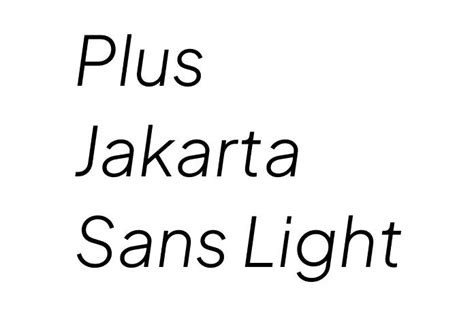
Hey guys! Ever stumbled upon a font that just screams professionalism and modern vibes? Chances are, you might have seen something from the Open-Source Mạnh Tường Foundation (OSMF) , and today, we’re diving deep into their contribution to the font world, specifically with a focus on OSMF Font Jakarta . This isn’t just about pretty letters; it’s about how fonts shape our digital experiences, enhance readability, and even influence brand perception. We’ll explore what makes OSMF fonts stand out, why Jakarta is a noteworthy addition, and how you can leverage these awesome resources in your own projects. Get ready to up your design game, because understanding typography is a superpower in the digital realm!
What’s the Big Deal with OSMF Fonts?
So, what exactly is the Open-Source Mạnh Tường Foundation (OSMF) and why should you care about their fonts? Essentially, OSMF is a community-driven initiative dedicated to creating and distributing high-quality, open-source digital assets. Think of them as a powerhouse of creative talent pooling their skills to benefit everyone. Their focus on open-source means all their work, including their fantastic fonts, is freely available for you to use, modify, and distribute . This is a game-changer, especially for designers, developers, and content creators who might be working on a tight budget or simply want the freedom to innovate without licensing headaches. The quality of OSMF’s offerings is consistently top-notch. They invest time and expertise into crafting fonts that are not only aesthetically pleasing but also highly functional. This means excellent legibility across various screen sizes and applications, from tiny mobile interfaces to large print designs. Using OSMF fonts means you’re opting for reliability, creativity, and a commitment to open access . It’s about democratizing design and making professional-grade tools accessible to a wider audience. Plus, being open-source often means a font is actively maintained and improved by a community, so you can be confident it will keep up with evolving design trends and technical requirements. It’s a win-win situation, really. You get beautiful, versatile fonts, and you support a fantastic open-source ethos. When you choose an OSMF font, you’re not just picking a typeface; you’re joining a movement that values collaboration and accessibility in the digital design space. This foundation’s commitment to providing freely usable resources is invaluable, especially in a world where design assets can often come with hefty price tags. It empowers individuals and small businesses to create professional-looking materials without breaking the bank, fostering a more inclusive and diverse digital landscape. Their dedication to quality ensures that even though the fonts are free, they don’t compromise on aesthetics or performance, making them a go-to choice for many.
Unpacking OSMF Font Jakarta: Key Features and Benefits
Now, let’s get down to the nitty-gritty of OSMF Font Jakarta . Why this particular font? What makes it special? Jakarta is a sans-serif typeface that embodies a modern, clean, and versatile aesthetic. It’s designed with clarity and readability in mind, making it an excellent choice for a wide range of applications. Whether you’re designing a website, a mobile app, a presentation, or even print materials, Jakarta offers a sophisticated yet approachable look. One of its standout features is its excellent legibility across different sizes and resolutions . This means your text will look crisp and clear whether it’s on a small smartphone screen or a large billboard. The designers behind Jakarta paid close attention to the details, ensuring that each character is well-formed and distinct, minimizing confusion between similar-looking letters like ‘i’ and ‘l’, or ‘0’ and ‘O’. This attention to detail is crucial for user experience, as poor readability can lead to frustration and errors. Another significant benefit is its versatility . Jakarta comes with a range of weights, from thin and light to bold and black, allowing you to create strong visual hierarchies and add emphasis where needed. This extensive family means you can maintain a consistent typographic style throughout your entire project, using different weights for headings, body text, captions, and more. This consistency is key to a polished and professional design. Furthermore, as an OSMF font, Jakarta is open-source and completely free to use . This means you can incorporate it into your commercial projects without worrying about licensing fees or restrictions. This is a massive advantage for startups, freelancers, and anyone looking to create high-quality designs on a budget. The freedom to use, modify, and distribute it further enhances its value. The clean lines and open counters of Jakarta contribute to its modern appeal, fitting perfectly with contemporary design trends that favor simplicity and functionality. It avoids unnecessary flourishes, allowing the content itself to take center stage. This minimalist approach makes it highly adaptable, seamlessly integrating with various color schemes and design aesthetics without clashing. Its neutral yet distinctive character ensures that your message is communicated effectively and stylishly. When you choose OSMF Font Jakarta, you’re opting for a typeface that is not only aesthetically pleasing but also highly functional and incredibly cost-effective, making it a smart choice for any designer’s toolkit.
The Future of Open-Source Fonts and OSMF
As we wrap up our deep dive into OSMF Font Jakarta , it’s essential to look at the bigger picture: the future of open-source fonts and the role of organizations like OSMF . The digital world is constantly evolving, and so are the tools we use to create within it. Open-source fonts are becoming increasingly vital in this landscape. Why? Because they foster innovation, promote accessibility, and encourage collaboration. Unlike proprietary fonts, which can come with hefty price tags and restrictive licenses, open-source fonts are freely available for anyone to use, modify, and distribute. This democratization of design resources is crucial for nurturing new talent, supporting independent creators, and enabling startups to compete on a more level playing field. Organizations like OSMF are at the forefront of this movement . They are essentially building the foundational elements of the digital creative world, ensuring that quality design tools are not just for the privileged few. Their commitment to open-source principles means that fonts are continuously improved by a global community of designers and developers. This collaborative approach leads to more robust, versatile, and relevant typefaces over time. We can expect to see more high-quality, specialized open-source fonts emerging from such foundations, catering to diverse needs and aesthetics. The future will likely see even greater integration of open-source fonts into major design workflows and platforms, making them the default choice for many. Think about the potential for dynamic font systems, AI-assisted font generation based on open-source models, and even more interactive typographic experiences. OSMF and similar organizations are paving the way for a more inclusive and creatively empowered digital future. By supporting and contributing to these initiatives, we are all investing in a world where beautiful, functional design is accessible to everyone. So, the next time you choose a font, consider the power and potential of open-source. It’s not just about saving money; it’s about being part of a global movement that values sharing, creativity, and collective progress. The journey of fonts like OSMF Font Jakarta is a testament to what can be achieved when passion, skill, and open collaboration come together. The future looks bright, and it’s set to be beautifully typeset, thanks in large part to the open-source community.
Conclusion: Why OSMF Font Jakarta is a Smart Choice
So there you have it, guys! We’ve explored the awesome world of the Open-Source Mạnh Tường Foundation (OSMF) , zeroed in on the fantastic OSMF Font Jakarta , and talked about how you can bring this gem into your own projects. To sum it all up, choosing OSMF Font Jakarta is a seriously smart move for several compelling reasons. First off, it’s free and open-source . Let’s be real, who doesn’t love saving a few bucks while getting top-quality design assets? This means no more stressing about licensing fees or usage restrictions, giving you the freedom to be as creative as you want. Secondly, Jakarta is a modern, highly legible, and versatile sans-serif typeface . Its clean design ensures your message is clear and impactful, whether it’s on a screen or in print, and the range of weights available means you can craft sophisticated visual hierarchies with ease. Thirdly, by using OSMF Font Jakarta, you’re supporting the open-source movement . You’re contributing to a community that believes in sharing knowledge and resources, making powerful design tools accessible to everyone. This ethos of collaboration and accessibility is invaluable in today’s digital age. Whether you’re a seasoned designer, a budding developer, or just someone looking to make your presentation pop, OSMF Font Jakarta offers a professional, reliable, and cost-effective solution. It’s a testament to the power of open collaboration and a fantastic example of the high-quality resources available through the OSMF. So, go on, give it a try, and experience the difference yourself. You won’t regret it!